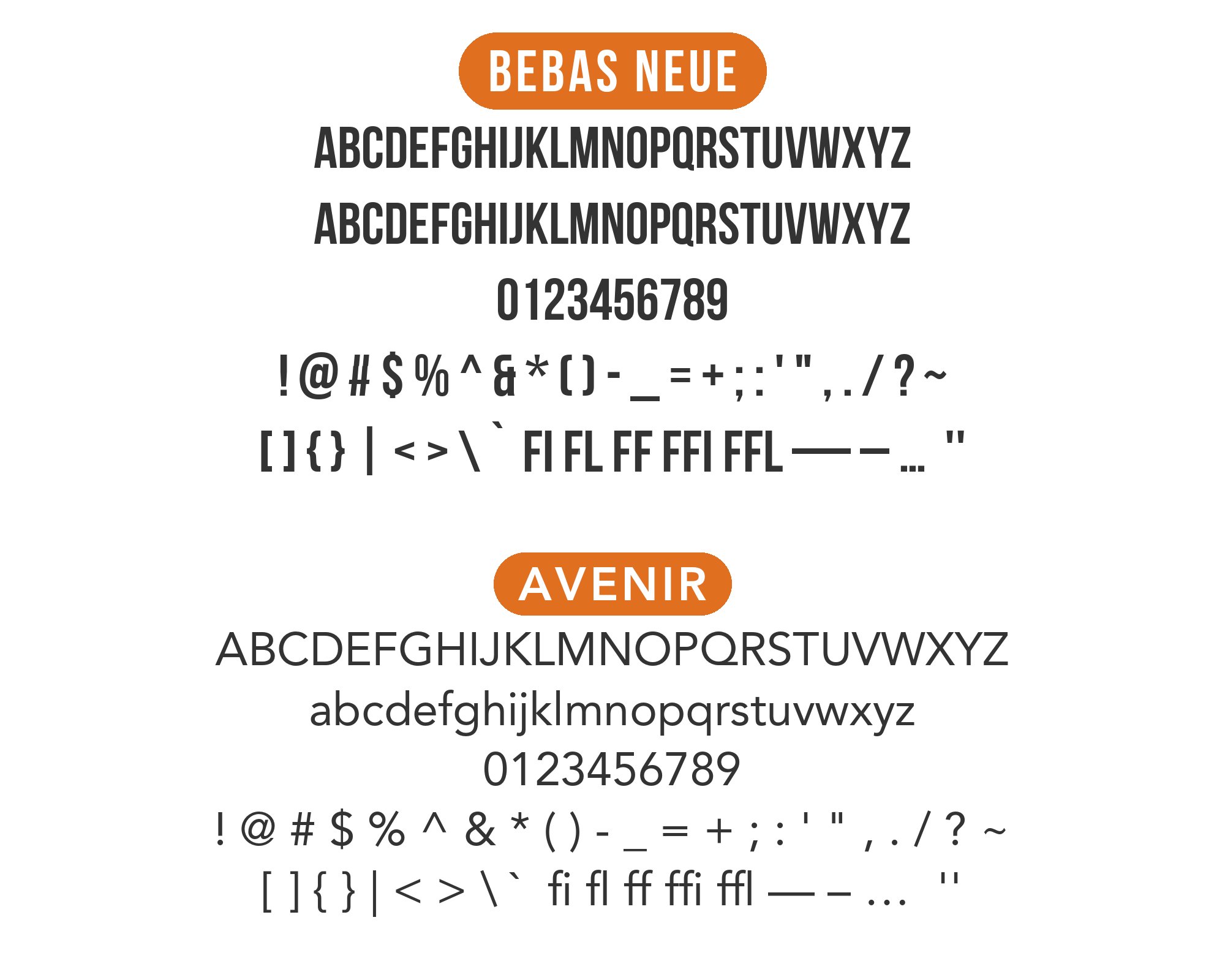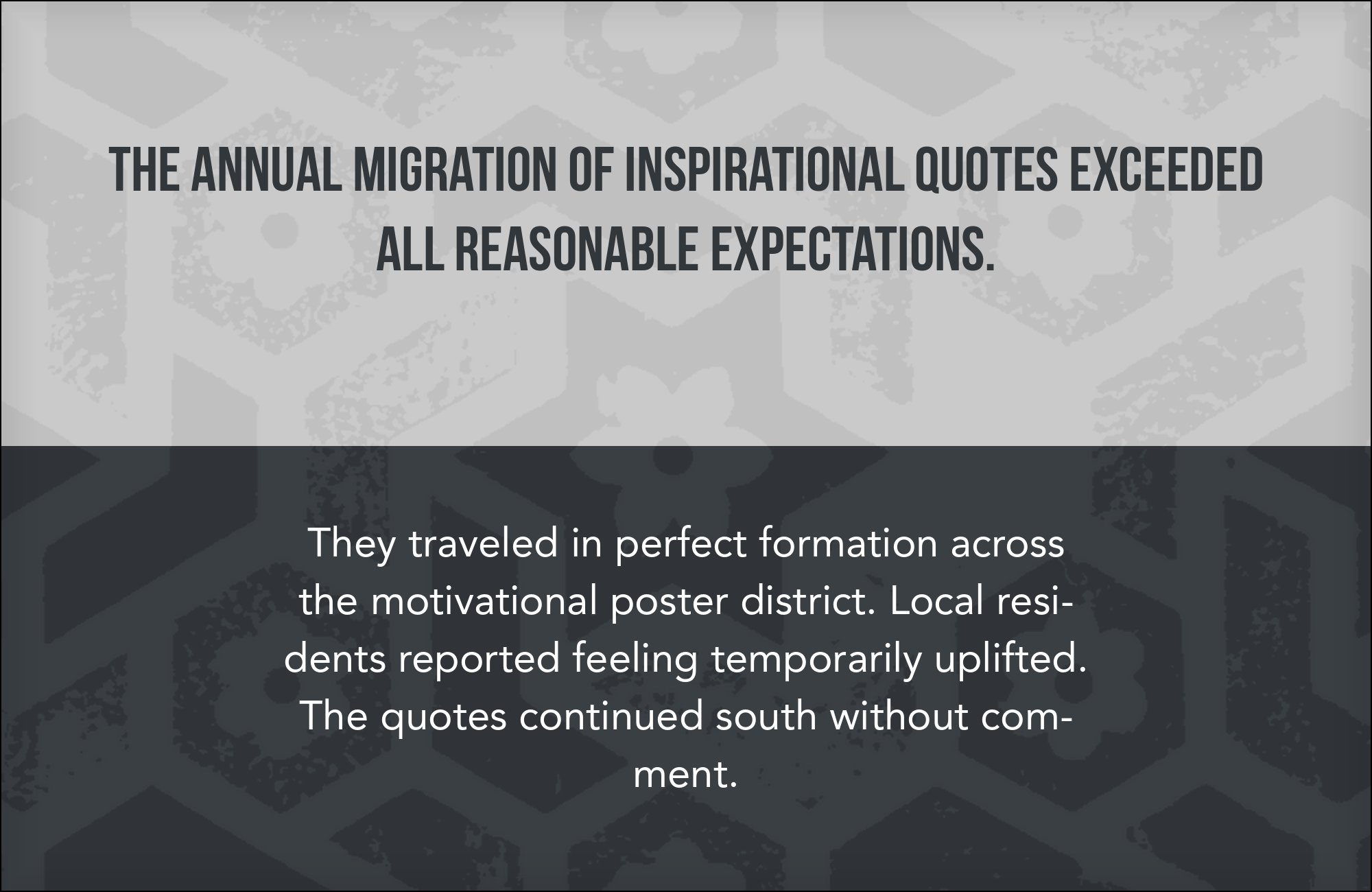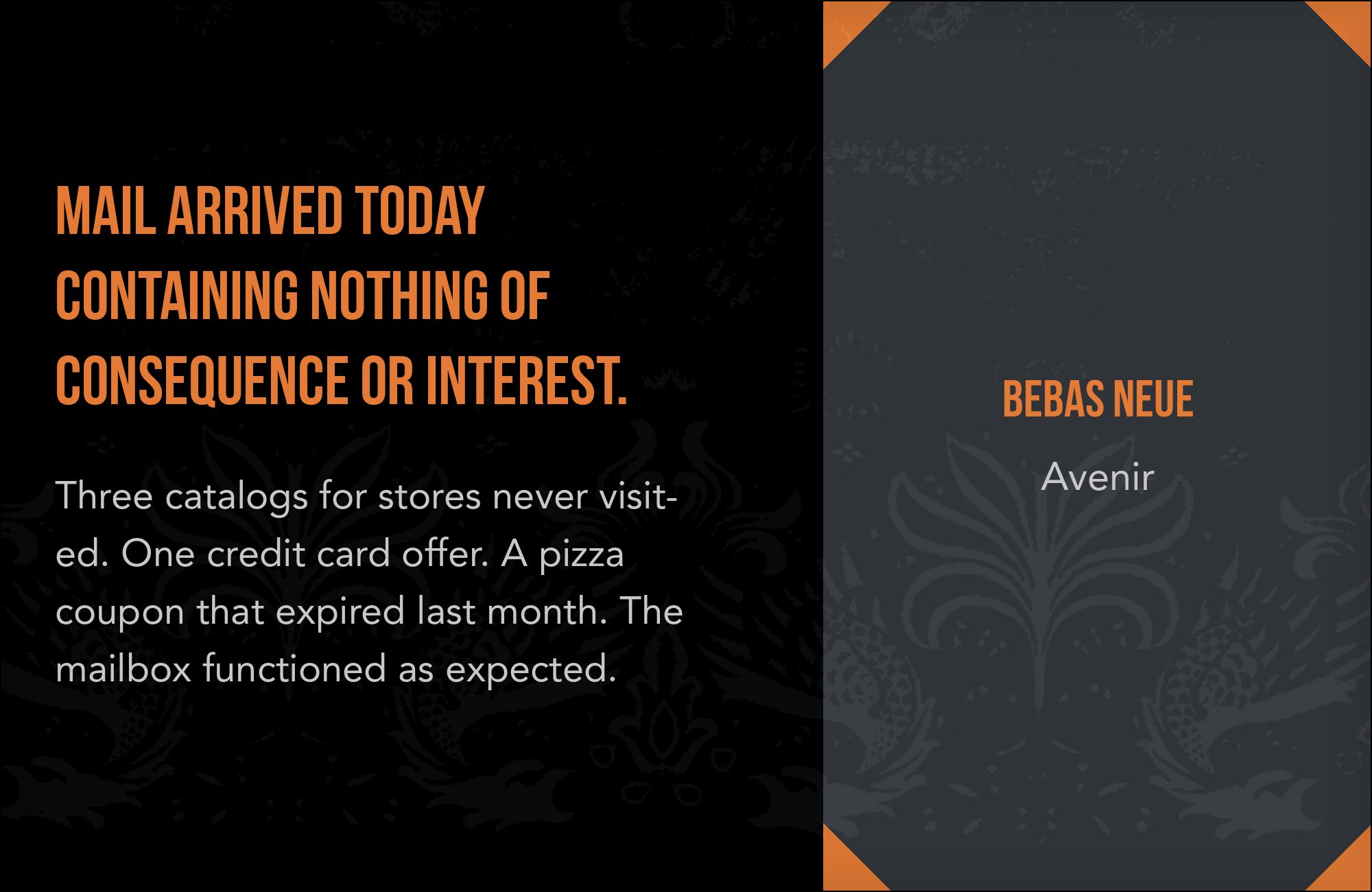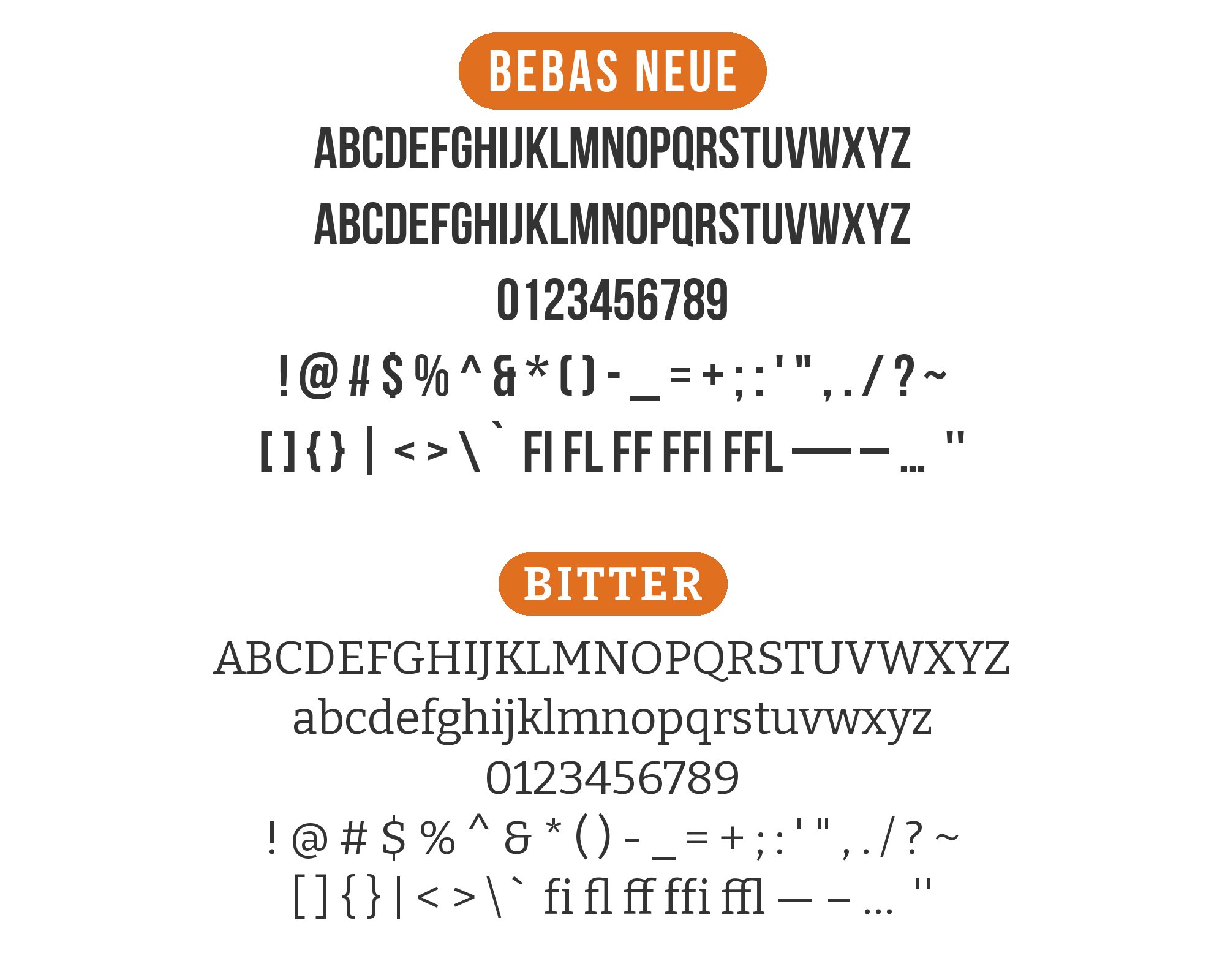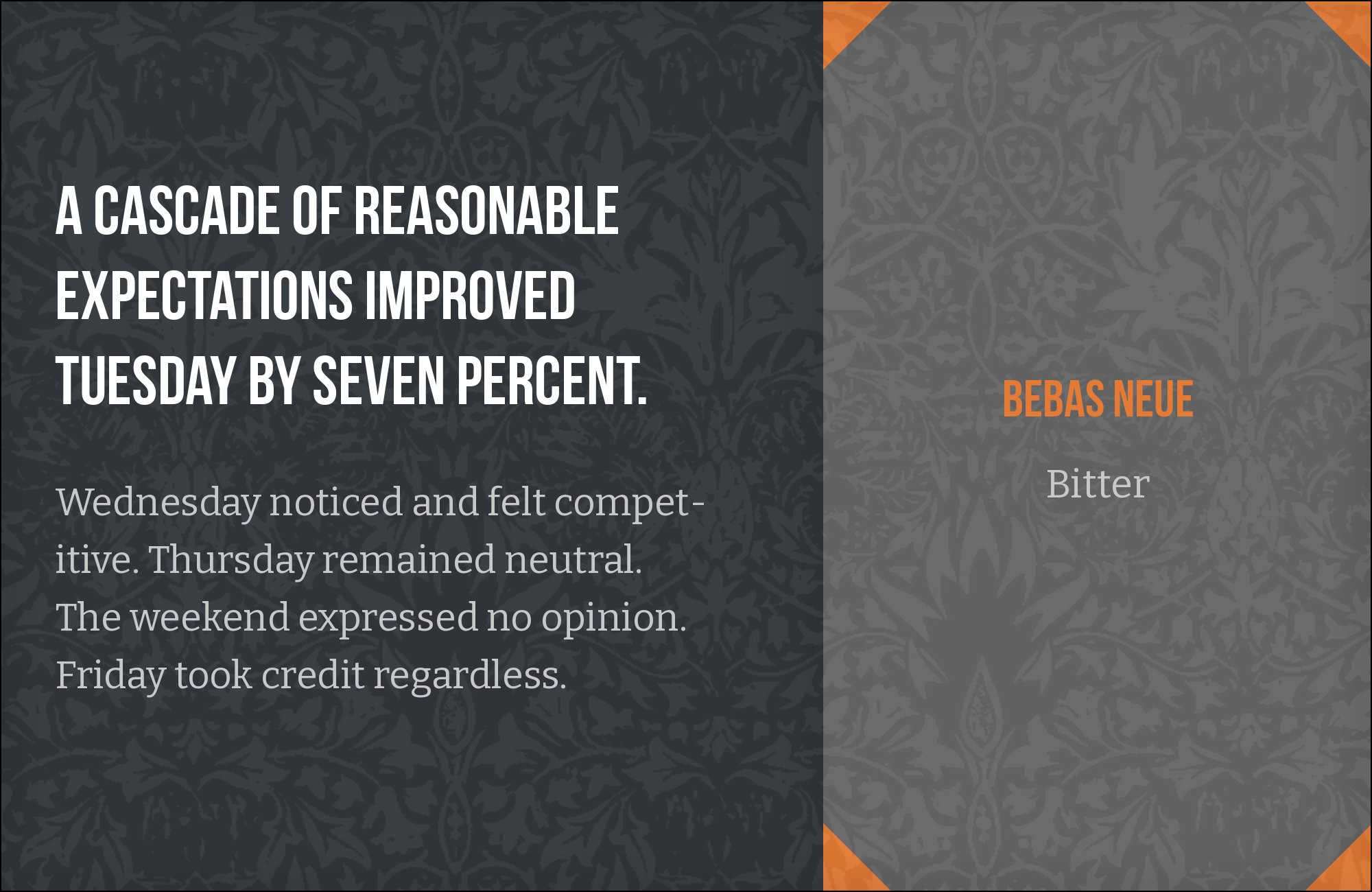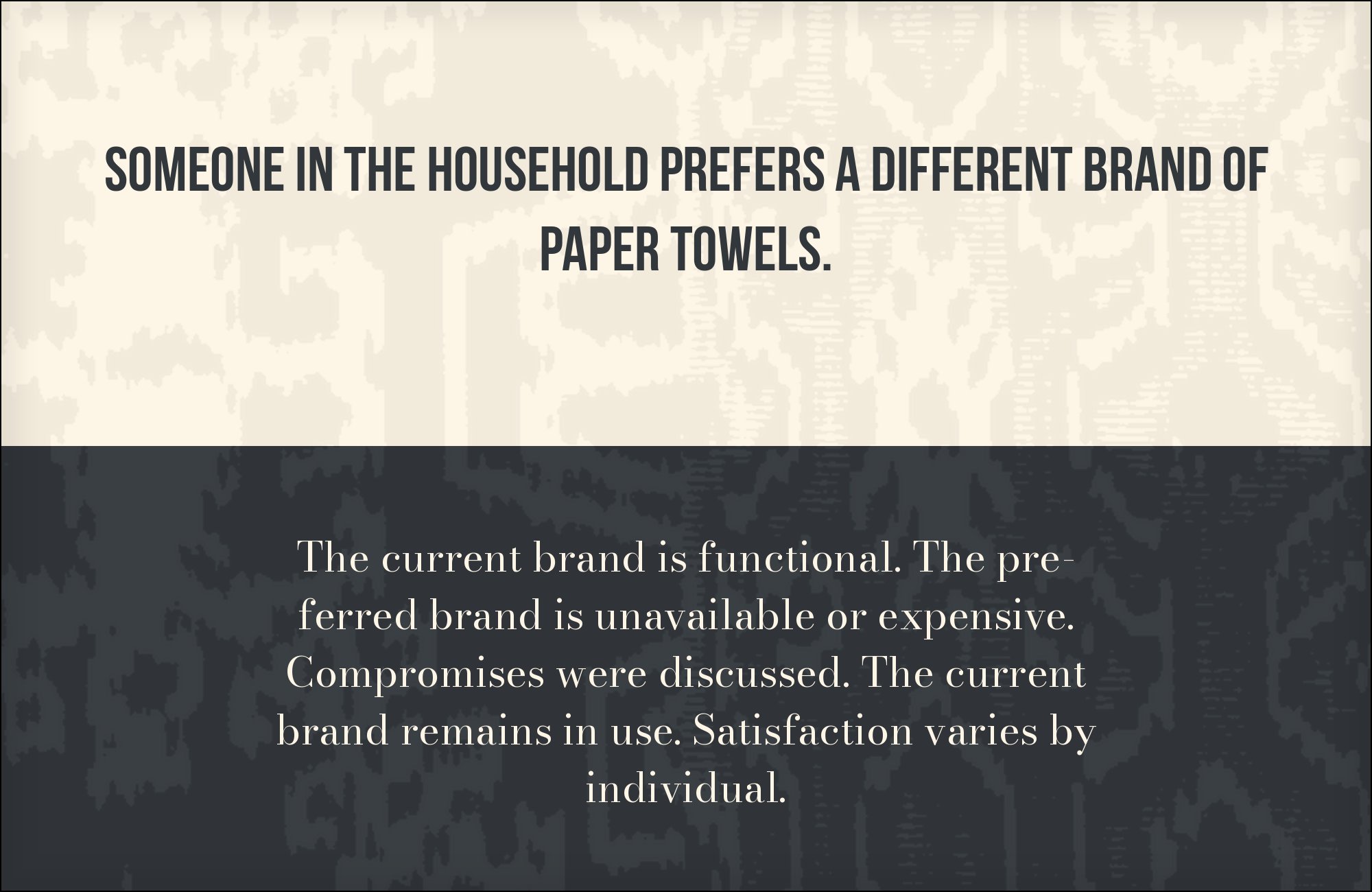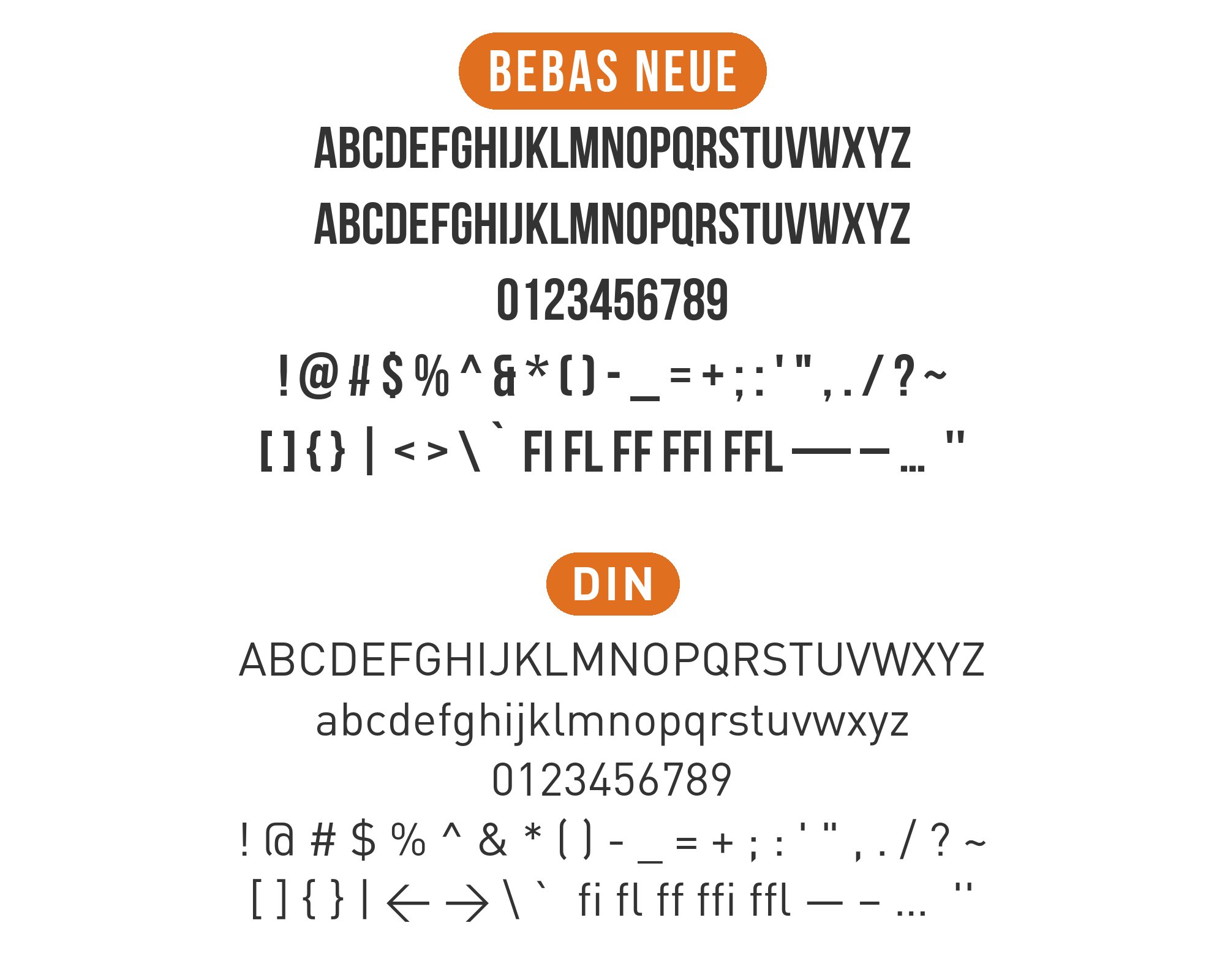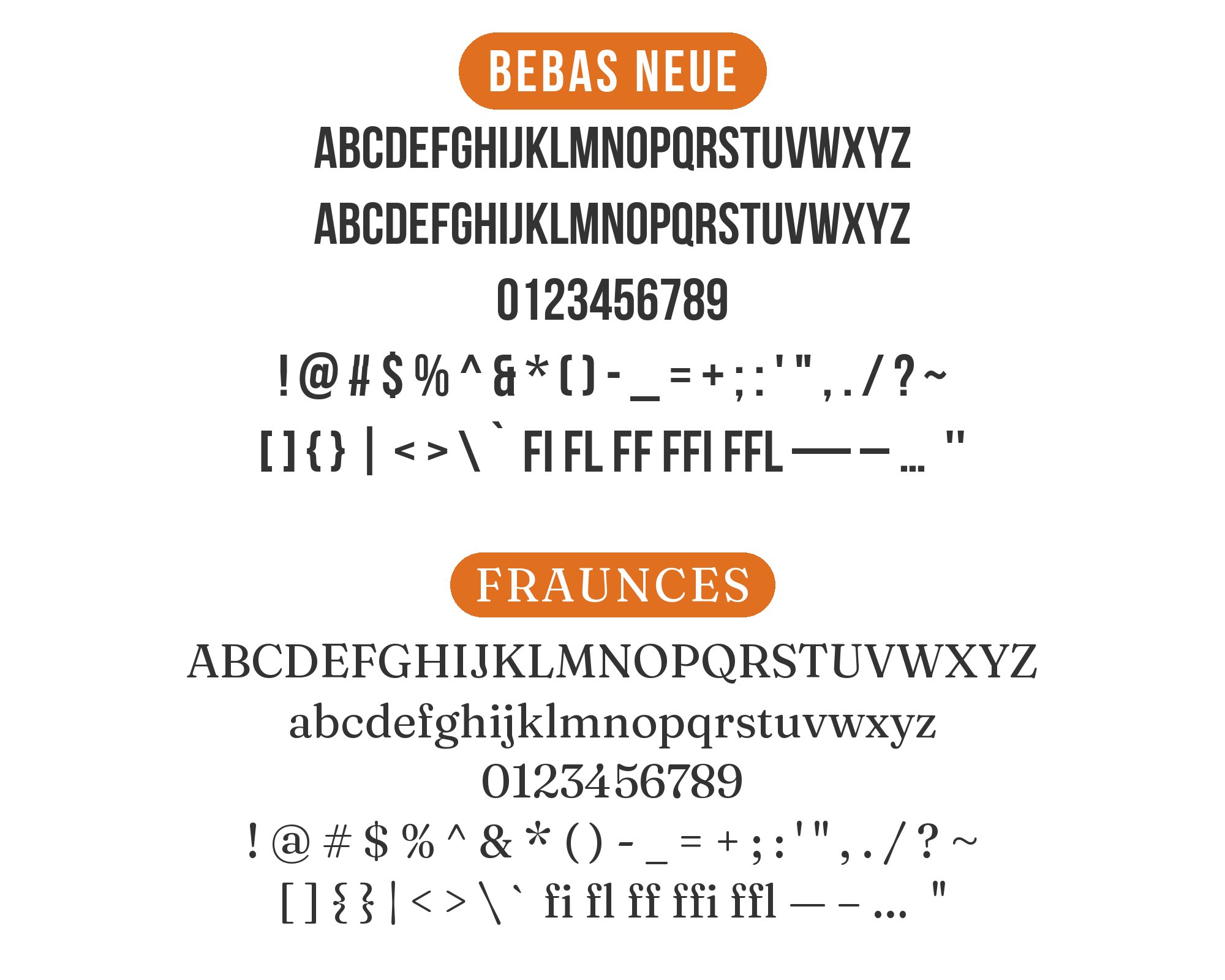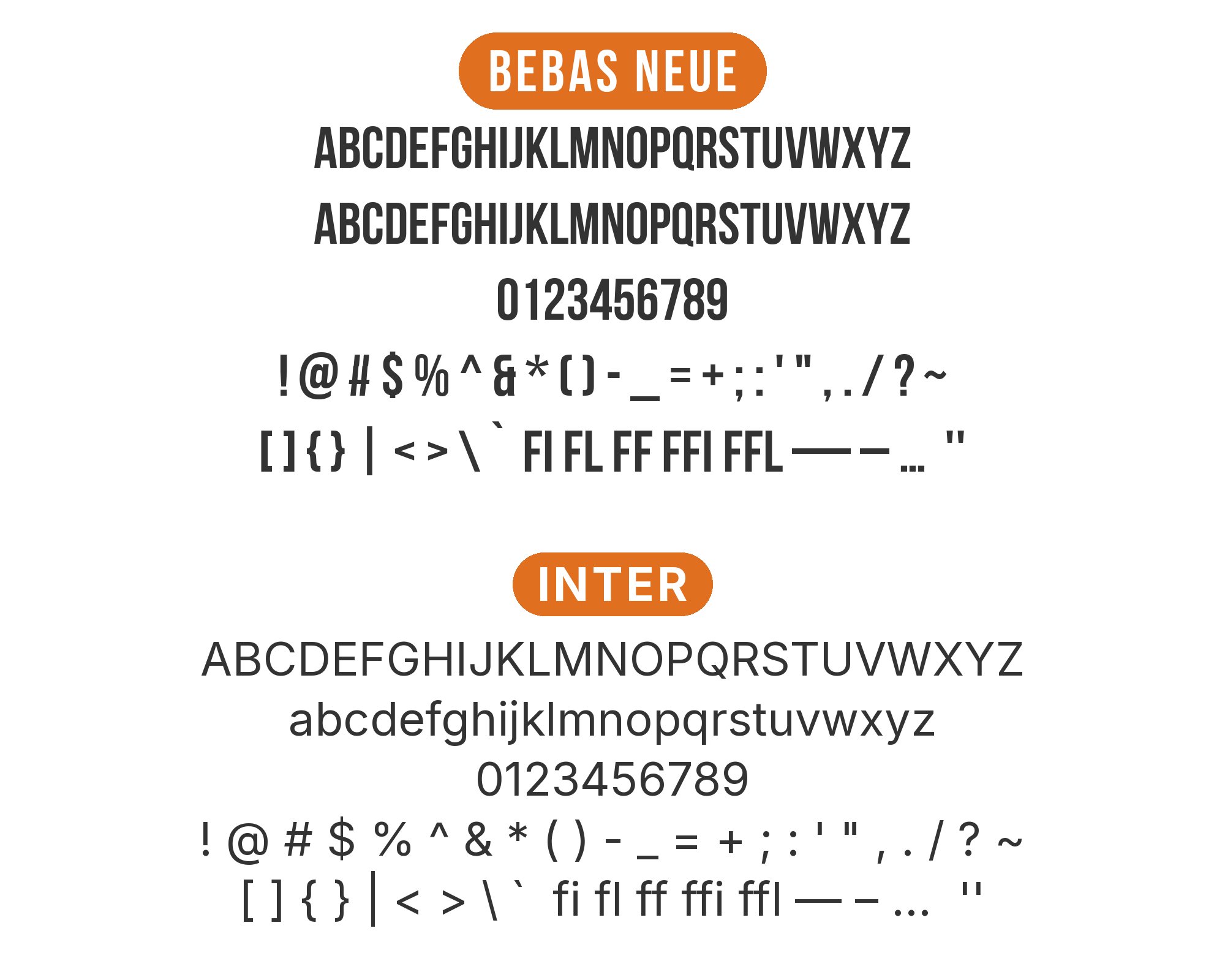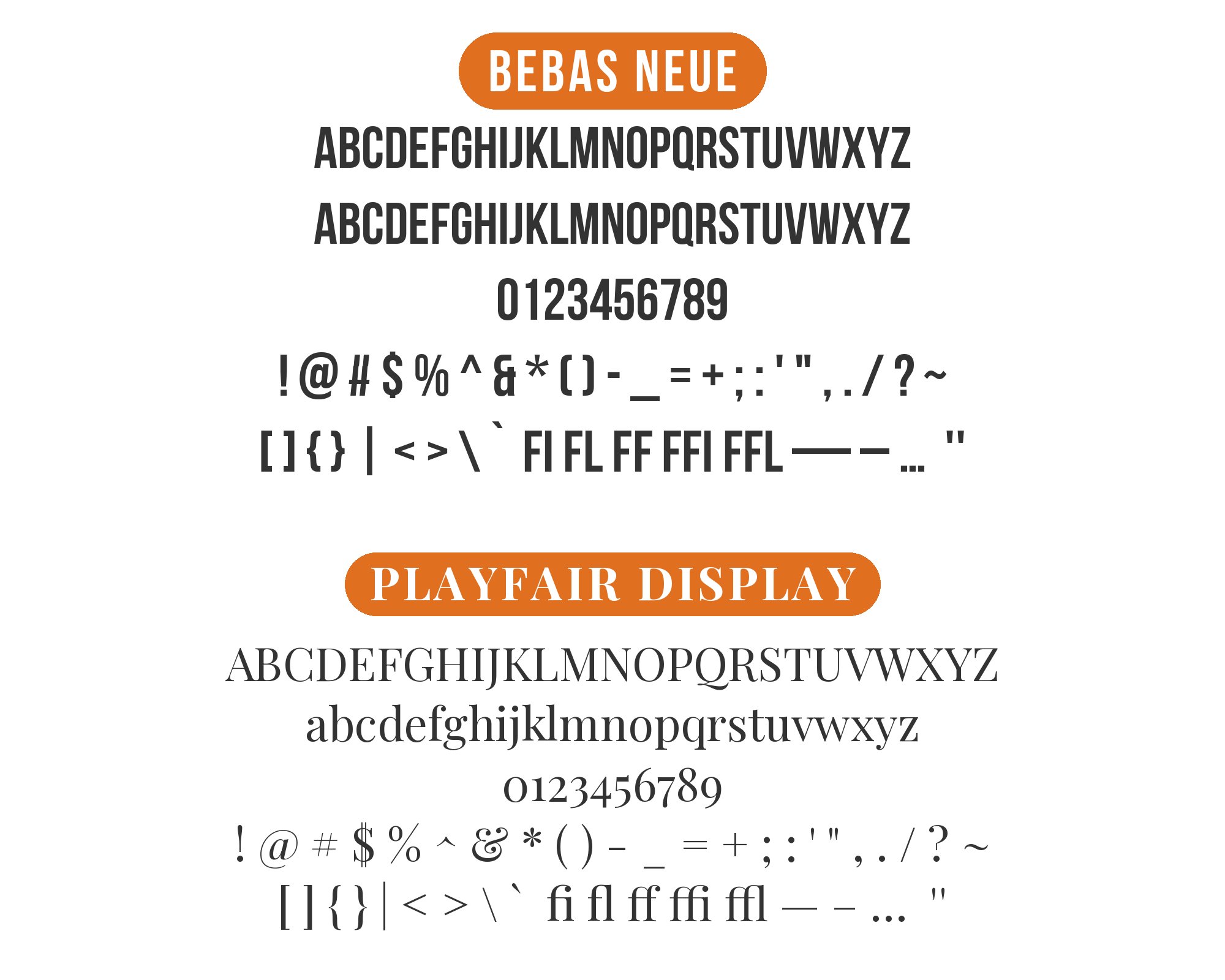
Bebas Neue pairs great with Inter, Montserrat and Roboto. All 15 pairings are shown below in real rendered specimens, with the reason each one works.
What fonts go with Bebas Neue? The free condensed grotesque has no lowercase at all, so every pairing decision starts from the same fact: Bebas Neue can only ever be the headline, and something else has to do the reading.
Ryoichi Tsunekawa released the original Bebas through his Dharma Type foundry in 2005; Bebas Neue followed in 2010 as a redesign that keeps the original’s proportions, and by Dharma Type’s account it became one of the most widely used all-caps font families in the world. Its tall, tightly tracked capitals carry a uniform stroke weight with almost no modulation, closer to a sign-painter’s stencil than a drawn letterform. The Google Fonts release is a single Regular weight under the SIL Open Font License; Fontfabric’s free family adds Thin, Light, Book and Bold. That single-weight, caps-only construction gives it enormous punch and zero internal flexibility — the Google Fonts cut has no italic and no second weight to lean on, and no way to set a sentence.
Pairing Bebas Neue is therefore never a contest between two headline faces; it is a search for the font that will carry every word Bebas Neue cannot. The choice comes down to how much personality that partner should bring: a neutral workhorse recedes and lets the headline keep all the drama, while a font with its own rounded warmth or serif history adds a second voice instead of just quiet support. Here are 15 fonts that pair well with Bebas Neue, ordered from the safest, most obtainable choices toward the more specialised ones.
1. Inter
Rasmus Andersson designed Inter and released it in 2017 as a screen face: tall x-height, open apertures, and letterforms tuned to stay crisp at the small sizes a headline face never has to survive. Set beneath Bebas Neue’s shout, it reads as the calm explanation that follows — exactly the job body copy under a display headline needs to do. Its neutrality is the whole point; nothing about Inter competes with the caps above it for attention. Free on Google Fonts, it is close to a default-safe choice for UI, editorial body text and captions alike. Set it at a true reading size and judge the pairing at the line length you will publish.
2. Montserrat
Montserrat’s geometric, rounded-corner construction carries enough personality of its own to do more than just recede — it can hold subheads and short blocks of mixed-case copy without disappearing into the page. Because it separates from Bebas Neue cleanly on both width and weight, the two never blur into a single register even when set close together. That makes it a strong choice where the page needs a second, quieter voice that still has some presence — branding, poster subheads, and consumer packaging where a plain workhorse would feel flat.
3. Roboto
Few fonts have been tested at scale the way Roboto has, and that ubiquity is itself a reason to choose it: mechanical, evenly built letterforms that read as neutral on nearly any device, in nearly any context. Set under Bebas Neue’s compressed caps, it disappears into the background the way body text should, carrying dense paragraphs or interface labels without ever asking to share the spotlight. It is a low-risk default rather than an inspired choice, which is precisely its value on a page where the headline has already done the talking.
4. Manrope
A modern semi-geometric sans with a light, technical tone, Manrope keeps its letterforms tight and even rather than expressive, which suits it to running directly beneath Bebas Neue’s density without a mismatch in mood. It reads well at both UI and editorial sizes, and its slightly narrower proportions echo the condensed feel of the headline above without imitating it outright. Free and variable on Google Fonts, it is a practical choice for tech products, dashboards and startup marketing pages built around a Bebas Neue masthead.
5. Nunito
Nunito’s rounded terminals and generous x-height do the opposite job Roboto does: instead of disappearing, they actively soften the hard edges Bebas Neue’s caps leave behind. That contrast in temperature — assertive display type over friendly, approachable body copy — works well for consumer and lifestyle brands that want a headline with punch but a reading experience that feels warm rather than clinical. Keep Nunito to normal text sizes; its personality is subtle enough not to fight the headline, but pronounced enough to change the page’s overall tone.
6. Work Sans
Drawn specifically for on-screen reading at moderate sizes, Work Sans keeps its apertures open and its skeleton unfussy, with none of the flourishes that would compete with a display headline. It carries captions, supporting copy and secondary navigation under Bebas Neue without ever trying to draw attention away from it. The pairing has a plain, workmanlike quality suited to editorial sites, product pages and anywhere the design needs a dependable reading partner rather than a second personality. Its even colour at paragraph size keeps the texture of the page steady, so the only place the eye stops is the headline.
7. Public Sans
Built for U.S. government digital services, Public Sans, based on Libre Franklin, is a strong, neutral face for interfaces, text and headings — engineered neutrality with no decorative agenda at all. That plainness sits comfortably beside Bebas Neue’s condensed geometry, which makes it useful for letting a masthead built on Bebas Neue extend cleanly into UI labels, form fields and body copy without a jarring shift in register. Its open licence makes it a practical pick for civic, institutional and utility-first products where the headline needs to make an impression but the interface underneath cannot afford any ambiguity.
“Your AI logo may not be yours to trademark.”
Check who owns it before you print it.
Check My Logo8. Bitter
Bitter is a slab serif designed for comfortable reading on any screen, with sturdy strokes and low contrast that hold up even in dense paragraphs. Set as body copy beneath Bebas Neue’s narrow display caps, it keeps the page grounded once the headline’s initial drama has passed, adding a bit of textured personality that a pure sans partner would not. The slab serif also signals a slightly more editorial register than a grotesque body font, which suits blogs, long-form articles and content sites built around punchy headlines.
9. Old Standard TT
A compact Modern (classicist) serif revived from late 19th and early 20th century book type, Old Standard TT reads as history and quiet authority set against Bebas Neue’s blunt modern punch. The combination works because the two faces occupy opposite eras without fighting for the same visual space — one is unmistakably contemporary, the other unmistakably not. It suits review sites, entertainment coverage and editorial layouts that want a headline with immediate impact over body text that feels considered and slightly formal, set at ordinary reading sizes rather than pushed for display.
10. Playfair Display
Playfair Display’s high stroke contrast and fashion-editorial proportions create one of the more dramatic splits on this list: loud, flat caps above, quiet, elegant serif detail below. That tension is the appeal — the two faces pull from completely different design traditions, which reads as deliberate rather than accidental when the layout is confident about it. Reserve Playfair Display for pull quotes, standfirsts or short subheads rather than dense body text, where its thin strokes lose crispness. Best for magazine-style layouts and fashion or lifestyle branding.
11. Avenir
Avenir’s warm geometric humanism gives a Bebas Neue headline a friendlier body partner than a strict grotesque would, softening the transition from shouted caps to ordinary reading copy. It ships as a system font on macOS, so on Apple platforms the pairing is available with no licensing to arrange; elsewhere it requires a license through Adobe Fonts or Monotype. The combination suits lifestyle and consumer brands that want the headline’s punch without the coldness a purely mechanical sans would introduce underneath it.
12. DIN
Descended from the German road and rail signage standard DIN 1451, this family of engineered grotesques shares Bebas Neue’s utilitarian, sign-painted lineage — both trace back to lettering built for instant legibility at a distance rather than for the page. Set together, they read as one coherent “engineered” voice across headline and label text, which suits transit-inspired branding, industrial products and technical documentation. Several foundries offer redesigned and extended versions of the standard, so obtainability varies by which specific cut is chosen.
13. Bodoni Moda
A variable Google Fonts revival of the classic Didone, Bodoni Moda pushes its thick-thin stroke contrast to an extreme that reads as pure editorial drama. Set below Bebas Neue, it gives a layout two entirely different registers of “loud” — one built from uniform weight and compression, the other from hairline-to-heavy contrast — which is useful when both a headline and a subhead need to command attention on the same page. Its thin strokes disappear at small sizes, so keep it strictly to display use: subheads and pull quotes, never body copy.
14. Fraunces
Fraunces is a warm, slightly wonky display serif built with soft curves and idiosyncratic details that read as hand-finished rather than engineered. Against Bebas Neue’s stripped-down, mechanical caps, it supplies the emotional texture and editorial warmth the headline deliberately withholds. Its optical-size axis lets it hold up reasonably well down to subhead sizes, though it is still happiest set large, as a pull quote or a secondary display line rather than as running text. A strong choice for editorial and lifestyle brands wanting real contrast in mood, not just in structure.
15. Sirin Stencil
Olga Karpushina drew Sirin Stencil for Cyreal as a display humanist sans with brush-inspired details and stencil-cut gaps — a second display face, not a body partner, that shares Bebas Neue’s engineered register without matching its monoline caps. The pairing puts two display faces side by side in the same industrial register instead of setting a soft serif against a hard sans, which makes it an unusual but coherent choice for brands leaning into a stencilled, utilitarian aesthetic. Keep it at display sizes if you want the stencil gaps to stay visible; at text size those gaps merge, which is a different look rather than a broken one.
Bebas Neue removes one variable from every pairing decision and adds another: because the free cut has no lowercase, the partner is not chosen for how well it echoes the headline’s mood but for how well it can carry everything the headline cannot say. Judge candidates first as reading fonts, and only second as visual companions.
Then set real copy at the sizes you intend to publish. Bodoni Moda and Fraunces both lose their character below display size, DIN’s obtainability depends on which cut is licensed, and even a safe default like Inter or Roboto should be checked at your actual line lengths before the pairing is called finished.